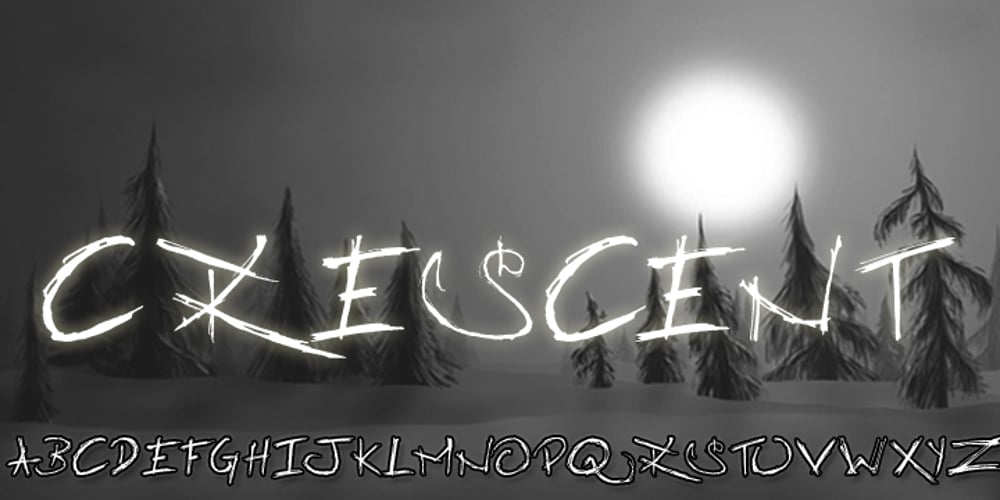
Crescent
Crescent font
Crescent Font Family was designed by Rahul A. Kumar and published by TrendGFX Design Studios. Crescent contains 1 styles and family package options. The most sensational design of the decade is now at large. These high-definition fonts can be used for titles, banners, tattooing, logotypes and many more places. Be it domestic or industrial, formal or informal, it can be used in every field imaginable. It has a sensational, funky style and remarks the current youth’s style. Such a font style has never been seen by the world, until today. These designs are 100% original and handmade. I searched a million miles but found this as the most appropriate idea for the world of font types at this time. It’s the coolest, funkiest and the best font ever made. It’s the era of graffiti and 3D, and we’ve combined both to give you CRESCENT.. So, use it, love it, buy it!